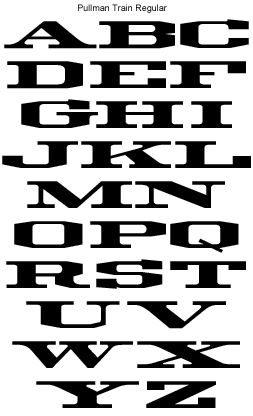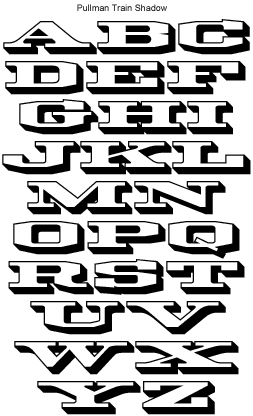
LHF Pullman Train Although much heavier than the actual lettering style used on the Pullman trains in the 1930's, this Matthew's inspired font features regular & shadow versions.